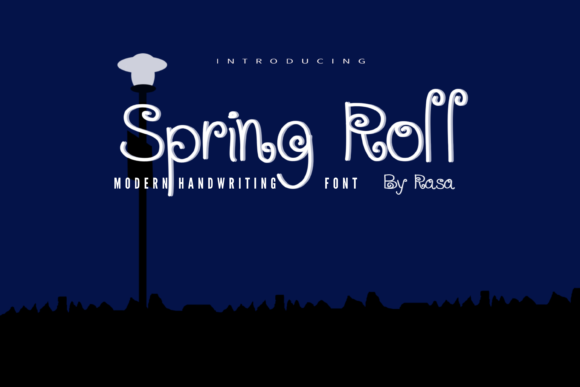
Behold Spring Roll Font, a script font brimming with charm and elegance. Inspired by the delicate artistry of handwritten letters, this font exudes a touch of whimsy and sophistication that will elevate your creative projects to new heights.
Immerse yourself in the world of Spring Roll Font, where letters dance and flow with grace. Each character is meticulously crafted to capture the essence of handwritten beauty, evoking a sense of warmth and intimacy that will make your designs truly shine.
Unleash your creativity with endless possibilities. Whether you're crafting personalized Christmas cards, designing invitations for special occasions, or adding a touch of charm to your branding, Spring Roll Font is the perfect choice. Its versatility knows no bounds, making it the ideal companion for a wide spectrum of projects.
Imagine your words taking on a life of their own, as Spring Roll Font transforms them into captivating works of art. The flowing script adds a touch of elegance to any design, while the playful nature of the font brings a sense of joy and wonder.
Indulge in the delightful intricacies of Spring Roll Font. Each letter is a testament to the artistry of Rasa, the creative mind behind this masterpiece. The subtle nuances and delicate curves add depth and dimension to your designs, making them stand out from the crowd.
Step into a world of endless possibilities with Spring Roll Font. Let your creativity soar as you explore the boundless applications of this enchanting font. From heartfelt letters to eye-catching logos, your designs will radiate with a captivating allure that will leave a lasting impression.